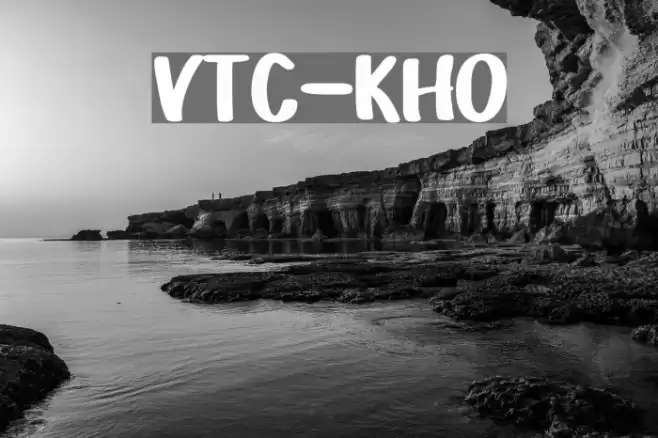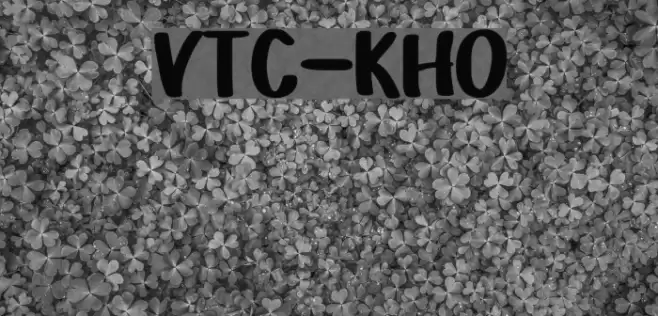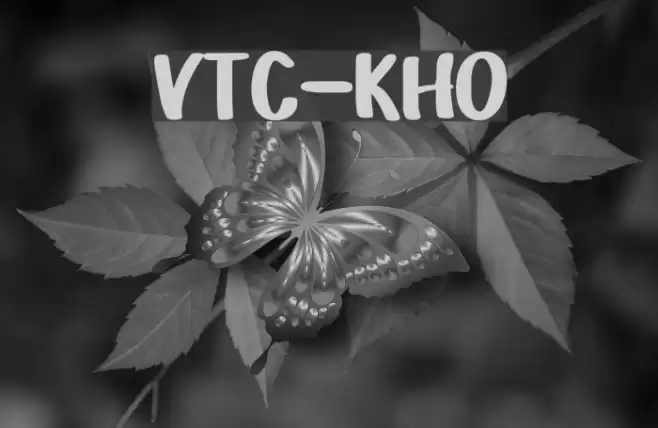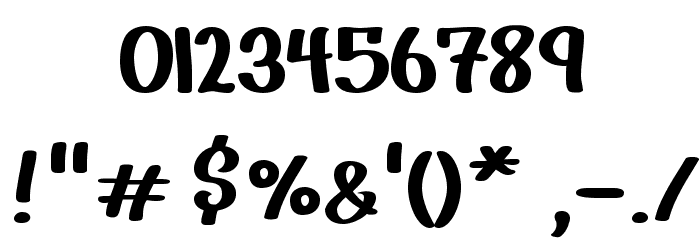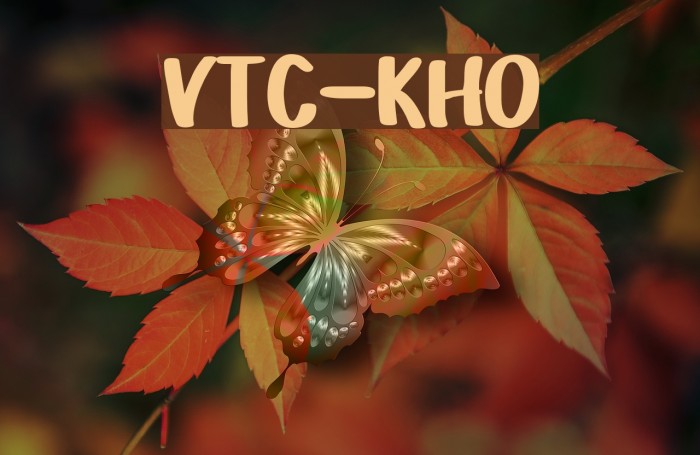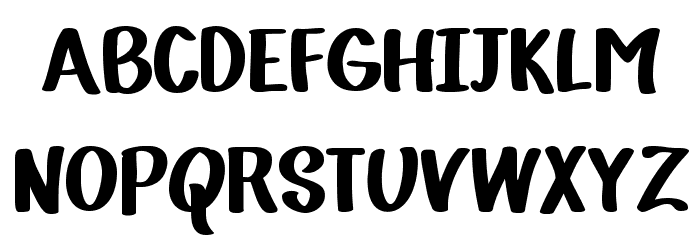
VTC-KomikaHandOne Font
VTC-KomikaHandOne Description
This font features a playful and informal style, characterized by its bold and rounded letterforms. The strokes are thick and consistent, giving it a cartoonish and friendly appearance. The characters are slightly slanted, adding a dynamic and lively feel. The uppercase and lowercase letters maintain a uniform width, contributing to a cohesive look. The numbers and special characters are designed to match the overall style, ensuring visual harmony across all elements. This font is perfect for projects that require a fun and approachable aesthetic.
A playful, bold font with rounded, cartoonish letterforms from Cartoon fonts.
- Proposed Projects: Ideal for comic books, children's books, playful branding, and casual invitations.
- Overall Style: Playful, Cartoonish